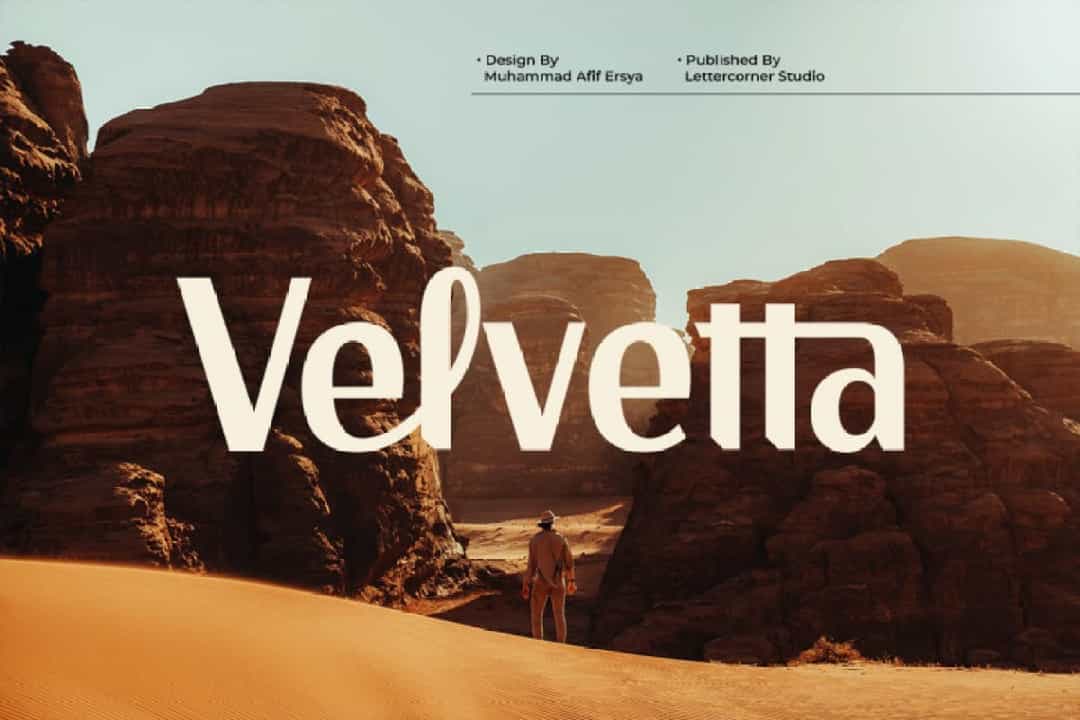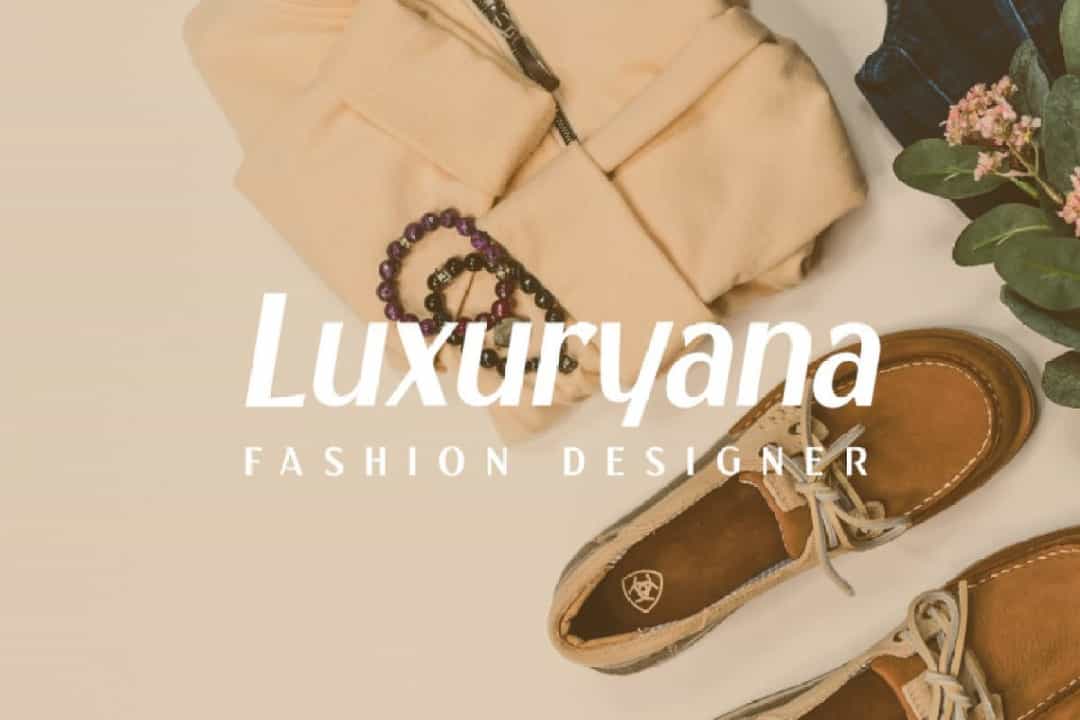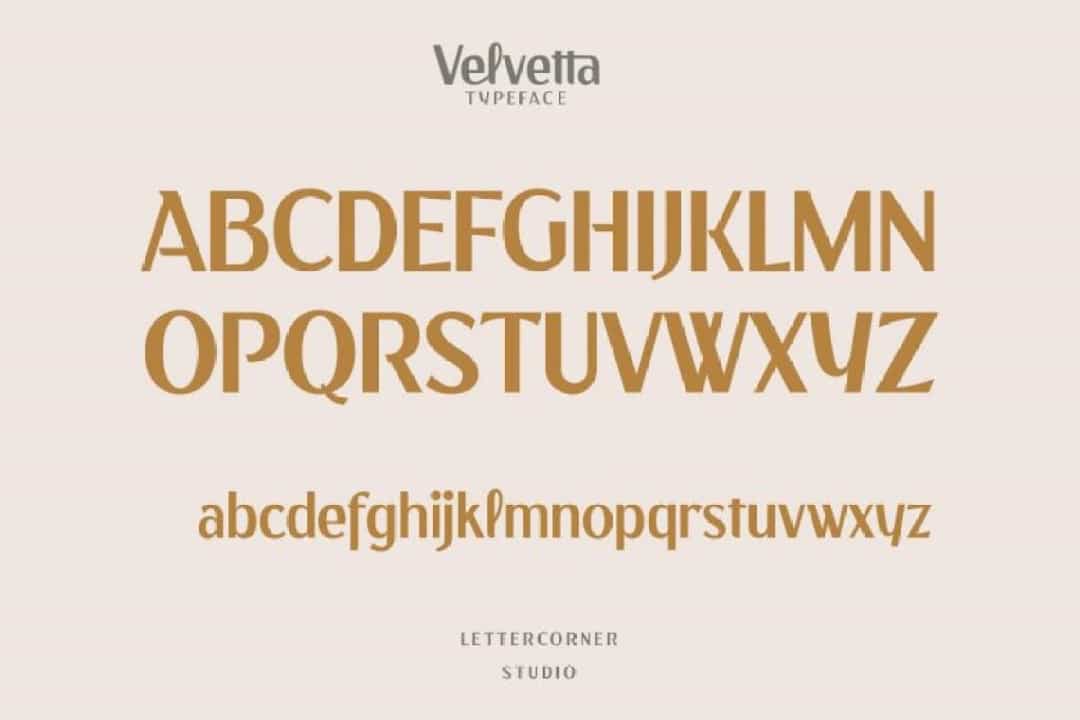
Velvetta font family epitomizes elegance and beauty in each character, coming in two styles – Regular and Italic – perfect for adding sophistication into designs. Velvetta was meticulously created so that each word visually engages readers.